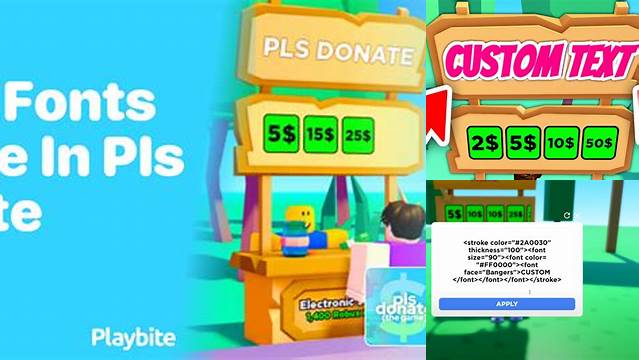
PLS DONATE: Custom Fonts Guide
Hey everyone! 👋 Ever wondered how to make your PLS DONATE stand out with a unique font? Well, you're in the right place! Custom fonts can really elevate your donation booth, making it pop and grabbing the attention of potential supporters. In this comprehensive guide, we'll walk you through everything you need to know about how to do custom fonts in PLS DONATE, from the basics to some cool advanced tricks. So, grab your favorite drink, get comfy, and let's dive into the world of font customization! We'll cover all the essential steps, ensuring you can personalize your booth and increase those Robux donations. Don't worry, it's easier than you think, and we'll break it down into simple, digestible steps. Let's get started and make your PLS DONATE experience even better!
Understanding the Basics of Custom Fonts in PLS DONATE
Alright, before we jump into the nitty-gritty, let's get a solid grasp of what we're dealing with. Custom fonts in PLS DONATE aren't as straightforward as selecting from a dropdown menu. The game doesn’t natively support direct font uploads, so we’ll be using some clever workarounds. The core concept involves using Unicode characters that mimic different fonts. Think of it as a secret code! 🤫 Instead of directly using Arial or Times New Roman, we’ll be leveraging Unicode characters that visually represent these fonts. This method allows us to display various font styles, even though the game itself doesn't recognize traditional font files. This is super important, guys, because it sets the foundation for everything we're going to do! Without understanding this, you might get confused. You will learn a bit of how the Roblox engine works and how to bend it to your will to get the perfect font. The good part is that this method is accessible to everyone, regardless of their technical skills. No coding experience is needed, so relax, even if you are a newbie, you can do this. Now, let's talk about why this is a game-changer for your PLS DONATE booth. A well-designed booth with an eye-catching font can significantly boost your donation rates. It's all about standing out from the crowd and making your booth memorable. When potential donors see your unique font, they are more likely to take a second look and support your cause. Plus, it adds a touch of personality, making your booth feel more welcoming and engaging. So, as you can see, the benefits of mastering custom fonts are numerous. Let's get into the details!
Step-by-Step Guide: Implementing Custom Fonts in PLS DONATE
Okay, let's get down to business! Here's the step-by-step guide to implementing custom fonts in PLS DONATE. First, we need to find a Unicode font generator. There are several online tools available. Search for “Unicode font generator” and explore different options until you find one you like. Remember to pick a generator that supports the font style you're aiming for. The most popular are those which offer you options such as Bold, Italic, Script, and other styles. Once you've selected your generator, it's time to enter your text. Type in the message you want to display in your PLS DONATE booth. This could be your name, a donation goal, or a special message. Next, you will need to use the generator. You'll typically find options to select the font style and preview your text. It’s super important to preview your text at this stage to make sure the generated font looks good and is easy to read. It will save you lots of time. Once you're happy with the appearance, copy the generated text. Now, go to your PLS DONATE game. In your game, navigate to your booth. Find the section where you can edit the text displayed on your donation sign. Paste your copied Unicode text into the sign. And that's it! You should see your custom font displayed on your booth. Make sure to test your custom font by visiting your booth to ensure everything looks right. Experiment with different font styles and messages to find the perfect look for your booth. This will take a few tries, but don't worry. We are always improving, right?
Tips and Tricks for Optimizing Your Custom Fonts
Alright, you've got the basics down, but let's level up your font game with some insider tips and tricks. First, consider readability. Choose fonts that are easy to read, even from a distance. Fancy fonts might look cool, but they can be hard to decipher. Stick to clearer styles to ensure your message gets across. Next, think about color. The color of your text is crucial. Ensure your font color contrasts well with the background of your sign. For example, if your sign is dark, use a light-colored font, and vice versa. This improves visibility and makes your booth more appealing. Now, about consistency. Try to maintain a consistent font style across all your text. Using multiple fonts can create a cluttered look. Pick a font style and stick with it to create a professional look. Let's not forget about character limits. Be mindful of character limits in the game. Keep your messages concise and to the point. You don’t want to cut off your message. Also, let's talk about testing and experimenting. Regularly test your font on different devices to ensure it looks the same for everyone. You will be surprised at how different things can look on different screens. Experiment with different font styles, colors, and messages to find the best combination for your booth. Finally, update your fonts regularly. Keep your booth fresh by updating your fonts and messages periodically. This will keep your booth interesting and attract more attention.
Troubleshooting Common Issues with Custom Fonts
Even with the best tips, you might run into some hiccups. Don't worry; here's how to troubleshoot common custom font issues. If your font doesn't appear correctly, double-check that you’ve copied the entire Unicode text. Sometimes, a missing character can ruin the whole thing. Also, make sure your Roblox game is up-to-date. Older versions of the game might have compatibility issues with certain Unicode characters. If your font looks distorted, try a different Unicode font generator. Some generators are better than others, so experiment to find one that works well. Also, try a different font style. Some fonts are simply not optimized for the game. Readability issues can also occur. If your font is hard to read, try a different font style or adjust the color contrast. Another thing that can go wrong is the character limits. Ensure that your message is within the character limits of the game. If your message is too long, it will be cut off, so keep it short and sweet. If you are still having trouble, check the Roblox community forums for solutions. Other players might have encountered the same problem and found a fix. If all else fails, you might need to contact Roblox support. They can provide further assistance. Always remember to stay patient, and don’t be afraid to experiment.
Advanced Techniques and Considerations
Alright, guys, let's move on to some advanced techniques and considerations for the pros out there. If you're feeling adventurous, you can try combining different Unicode characters to create unique effects. This can add a whole new dimension to your booth design, allowing you to create really amazing effects. You should also explore using color codes to customize your font colors further. While the game might have limitations, you can still find ways to adjust colors to your liking. Keep in mind that some characters might not be supported in the game. Test your text thoroughly to ensure all characters display correctly. Furthermore, you should always stay updated with game updates. Roblox frequently updates the game, and these updates can affect how custom fonts are displayed. The best practice is to keep an eye on these updates and adjust your font accordingly. Also, consider using different sizes and styles for different parts of your message. This is all about improving the readability of your message. Finally, the design of your booth matters. Make sure your font complements your booth's overall design. A well-designed booth will attract more attention and donations.
Maximizing Your Donations with Custom Fonts
So, how do we maximize donations with custom fonts? First, focus on creating an engaging message. Write a compelling message that encourages people to donate. This will make a difference. Remember to showcase your personality. Let your personality shine through your font choice and message. People like to support people they connect with. Be sure to include a clear call to action. Tell people what you want them to do. Make it easy for them to donate. Remember to set donation goals. Set clear donation goals to motivate donors. When people see what you are striving for, they will feel more connected. Don't forget to update your message regularly. Keep your message fresh by updating it from time to time. Regular updates will make your booth interesting. Also, be responsive to the community. Engage with the community and thank them for their support. Positive interactions will encourage more donations. Promote your booth in the community. Share your booth in social media and other platforms. More visibility will attract more donors. Finally, consider offering rewards for donations. This will motivate donors to give more. And always say thank you!
Conclusion: Elevate Your PLS DONATE Booth with Custom Fonts
Alright, folks, you've made it to the end! 🎉 We've covered everything from the basics to advanced techniques. Now you know how to do custom fonts in PLS DONATE and use them to your advantage. Remember, custom fonts are more than just a cosmetic upgrade; they're a way to express your personality, grab attention, and boost those Robux donations. By following these steps and incorporating the tips and tricks we've discussed, you'll be well on your way to creating an eye-catching and successful donation booth. So, go forth, experiment, and have fun customizing your PLS DONATE experience! I am confident that with these techniques you will transform your booth to make it the most attractive and successful possible. Keep experimenting and keep learning! Thanks for reading, and happy donating! 💖